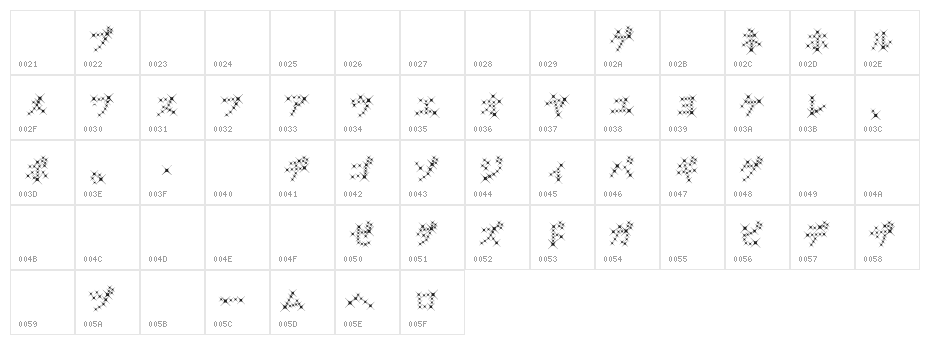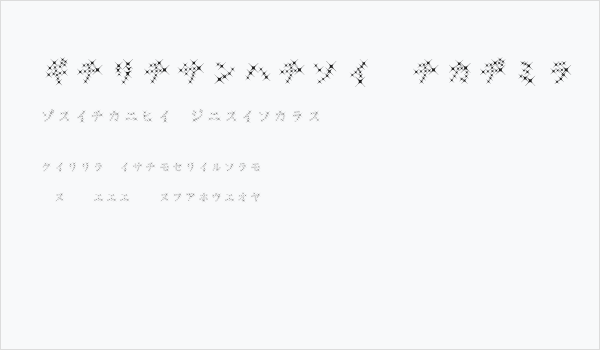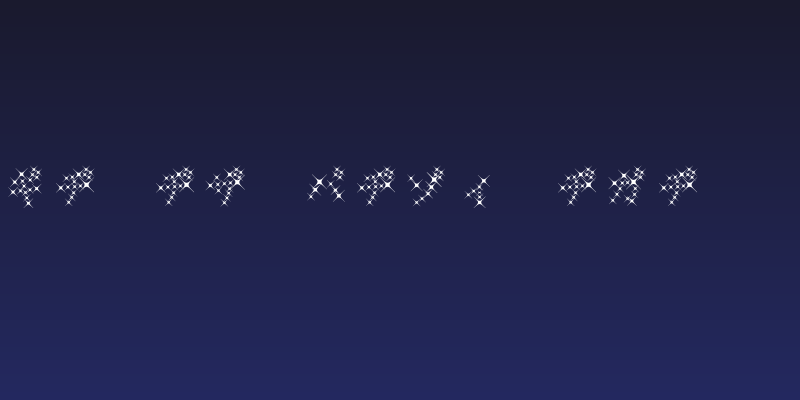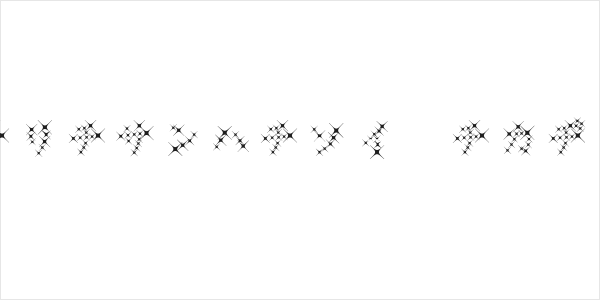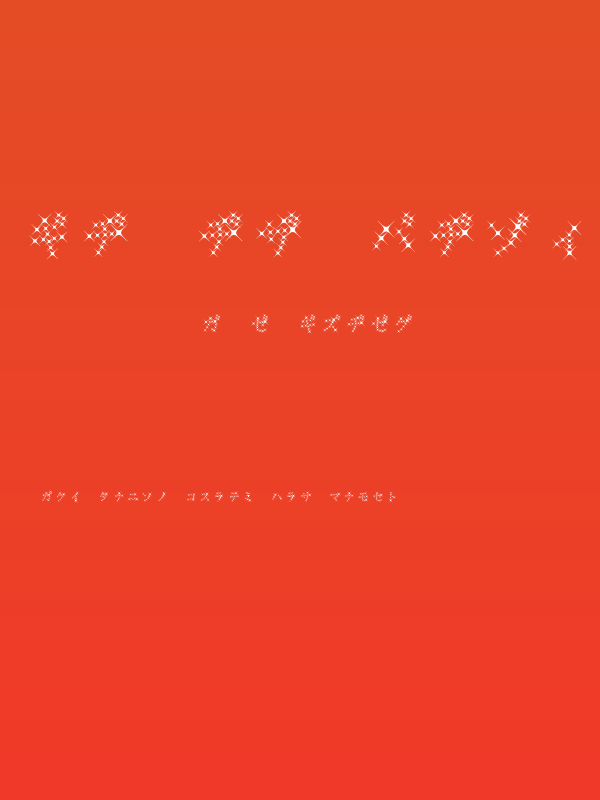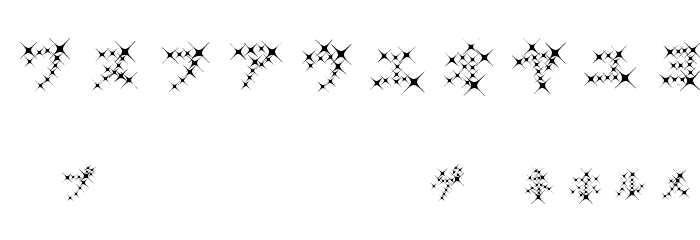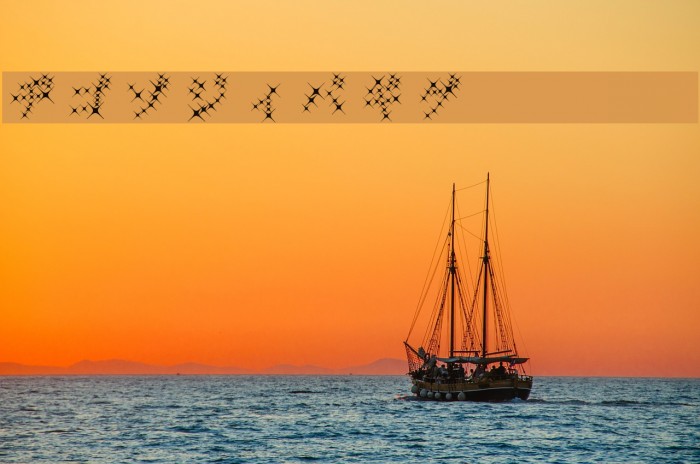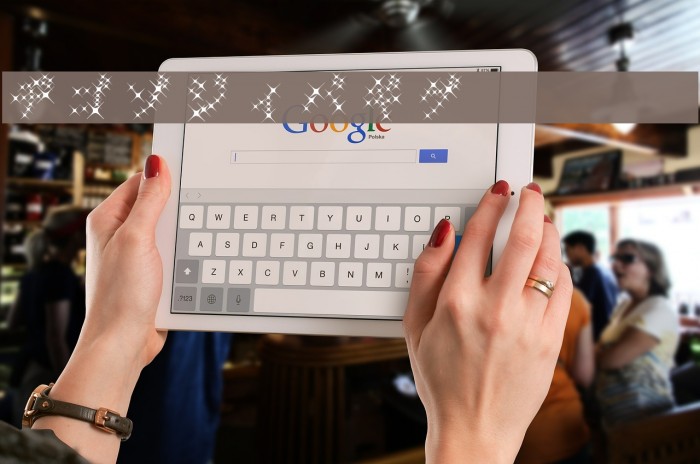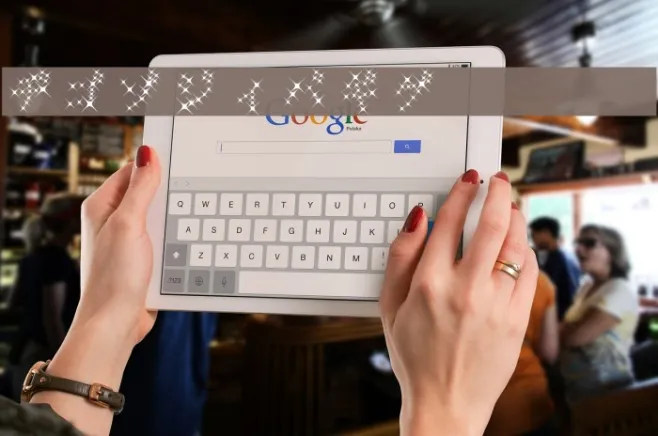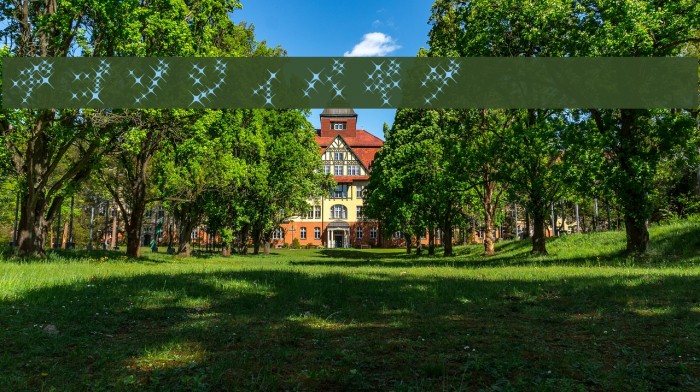
GalaxyfaceKatAno Font
GalaxyfaceKatAno Description
This font features a unique and decorative style, characterized by intricate star-like patterns that form each character. The design is highly ornamental, with each letter appearing as if it is composed of a constellation of stars. This gives the font a celestial and whimsical appearance, making it stand out as a distinctive choice for creative projects. The characters maintain a consistent pattern throughout, ensuring readability while still offering an artistic flair. The font's design is both modern and playful, suitable for projects that aim to capture attention and convey a sense of wonder or fantasy.